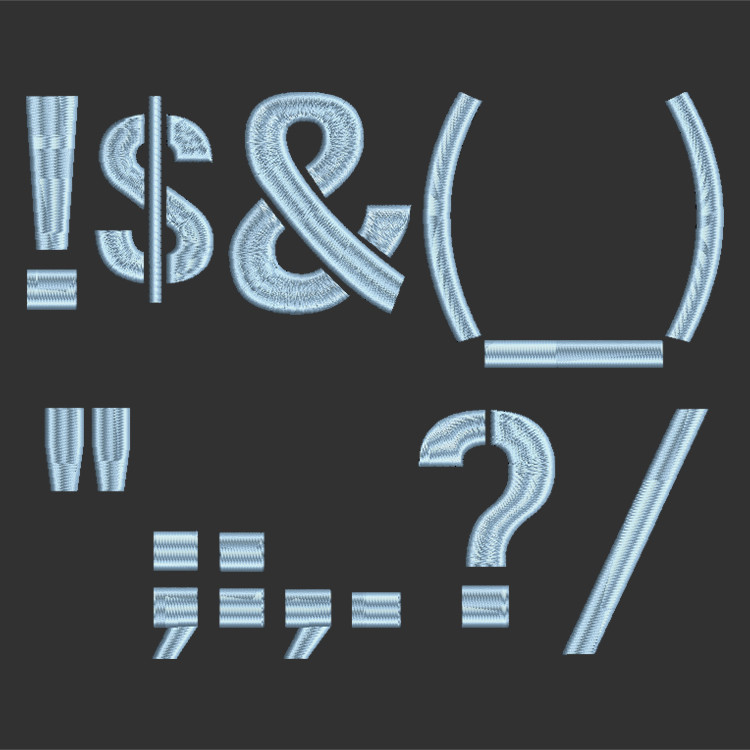
Gunplay font
Stitched out nicely on a Steelers t-shirt!
Title: Gunplay Machine Embroidery Font
This beautiful font would look amazing as a Monogram on Totes, School bags and purses!